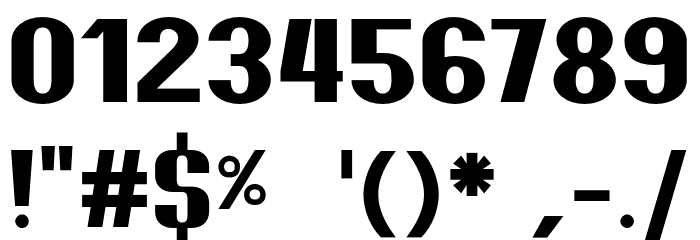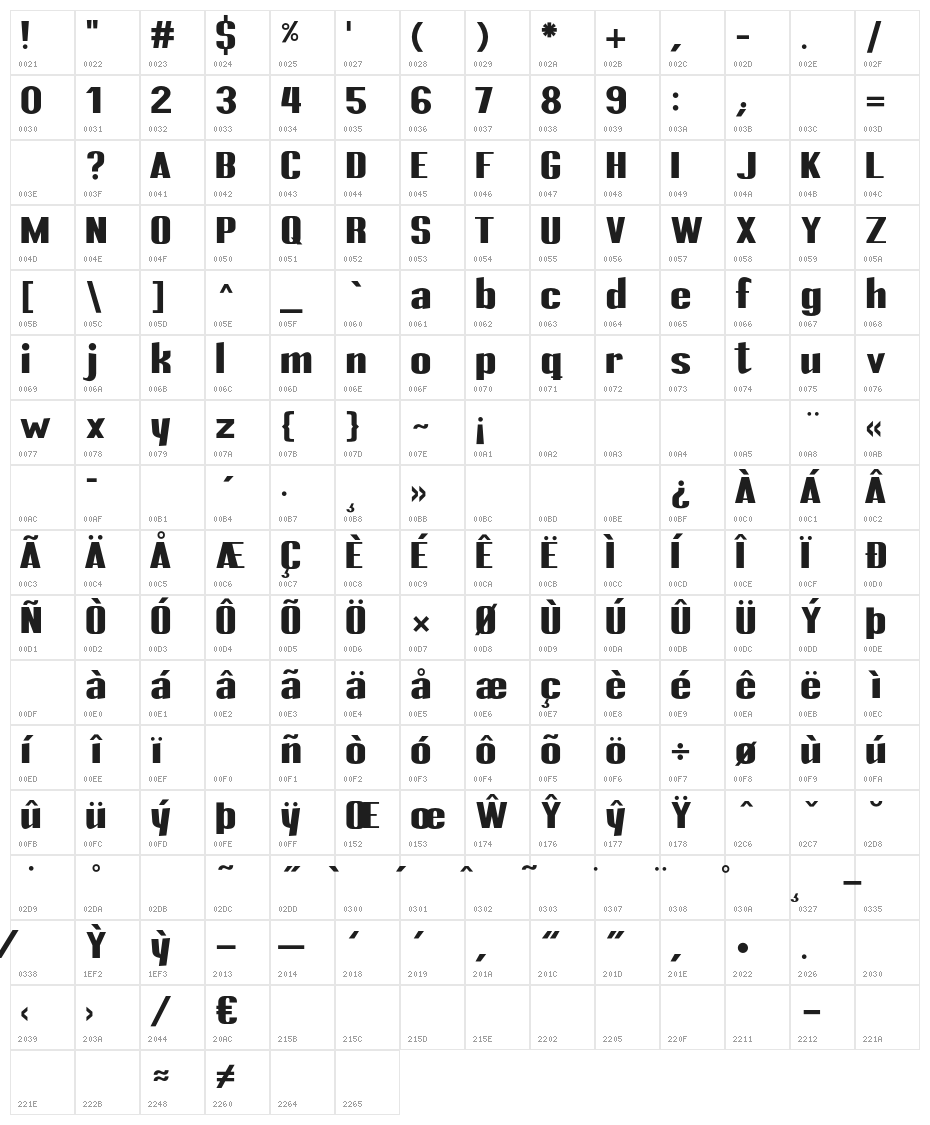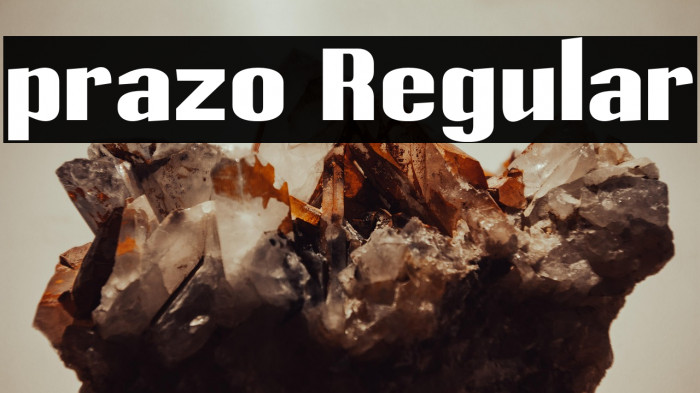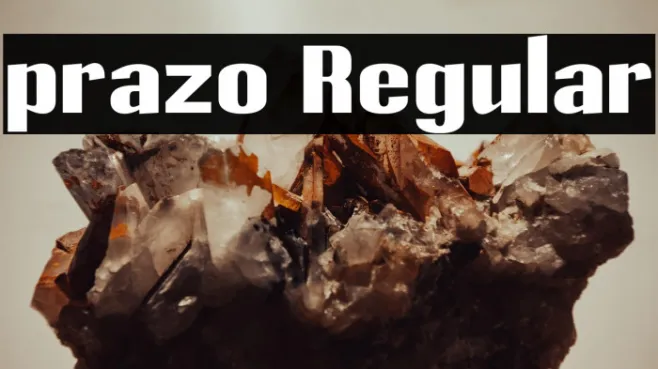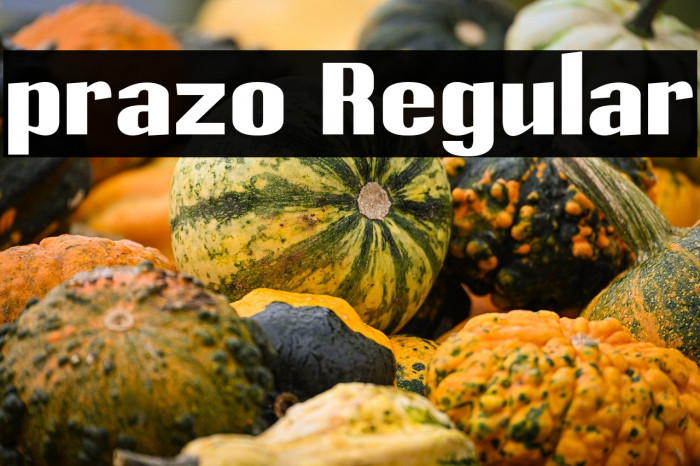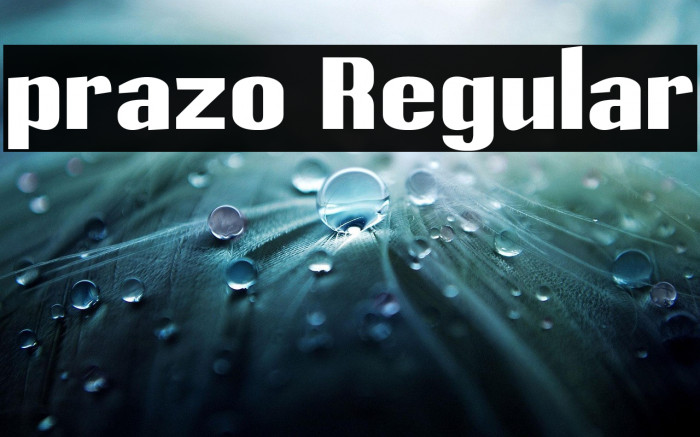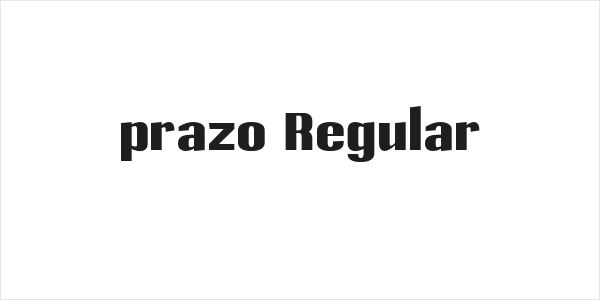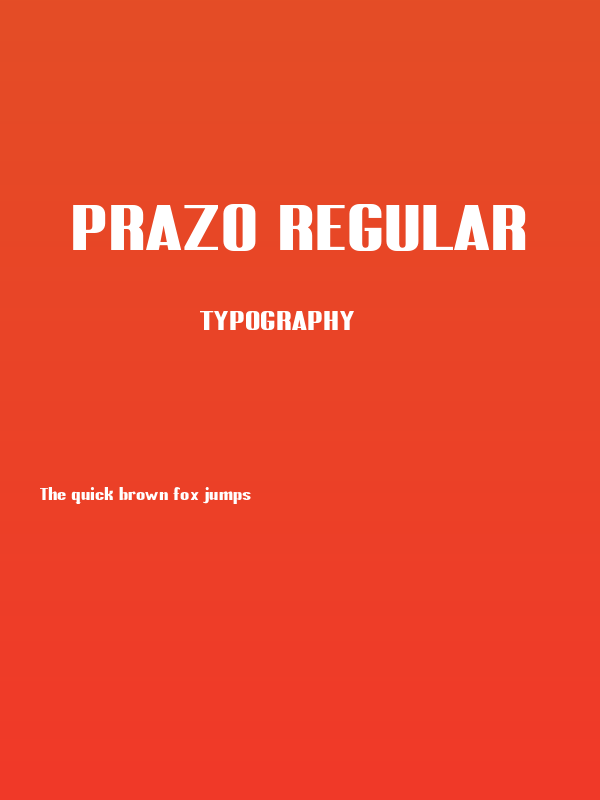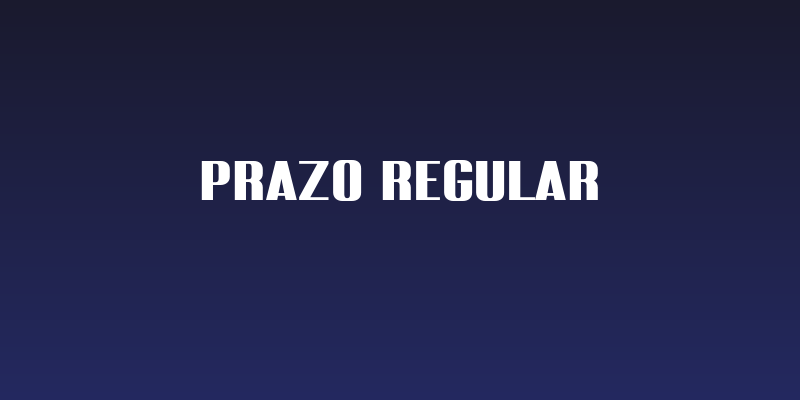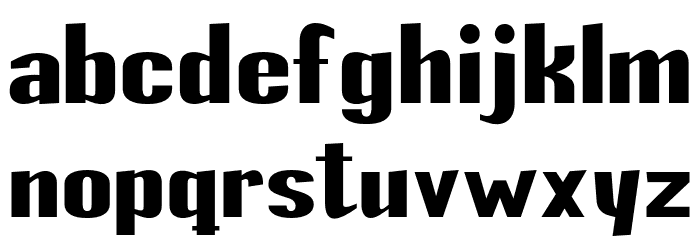
prazo Regular Font
prazo Regular Description
This font features a bold and impactful design with strong, thick strokes that convey a sense of power and confidence. The uppercase letters are particularly striking, with a geometric and structured appearance that ensures readability and attention. The lowercase letters maintain a consistent style, offering a harmonious blend with the uppercase. Numbers are clear and robust, making them suitable for various applications. The special characters are designed to complement the overall aesthetic, ensuring versatility in usage. This font is ideal for making a statement in any design project.
| Proposed Projects | Ideal for headlines, posters, branding, and advertising where impact and clarity are essential. |